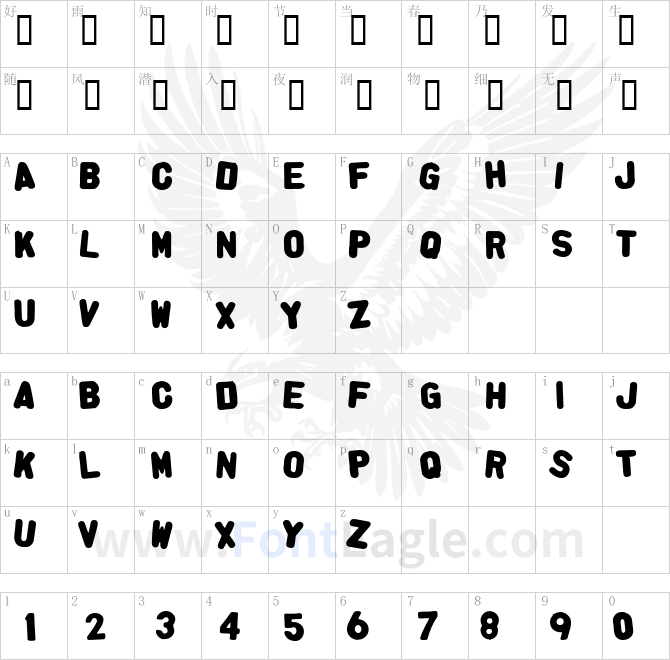
AlphaFridgeMagnetsAllCap is a great font, widely used in graphic design, single-page menu design, poster design and other fields, and is deeply loved by designers.AlphaFridgeMagnetsAllCap download.